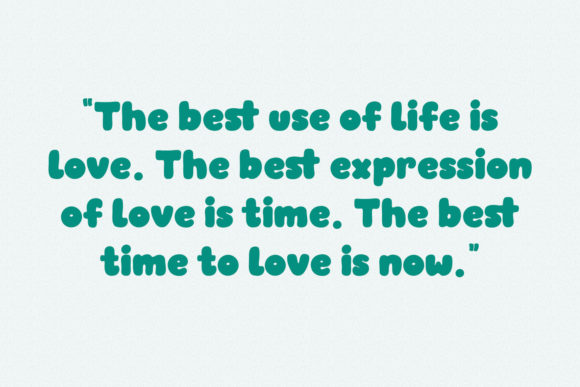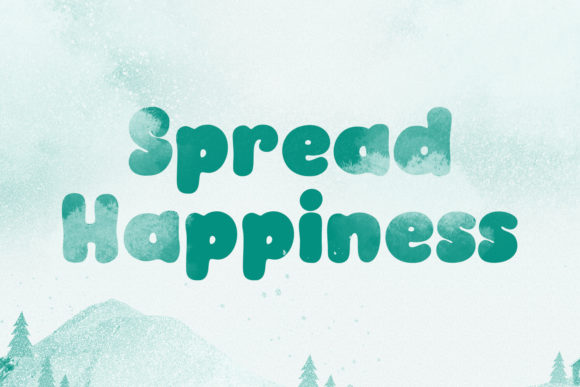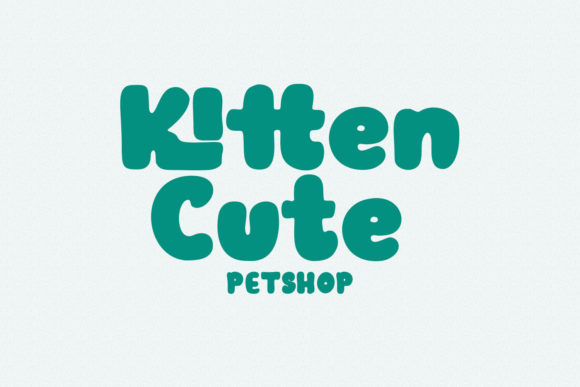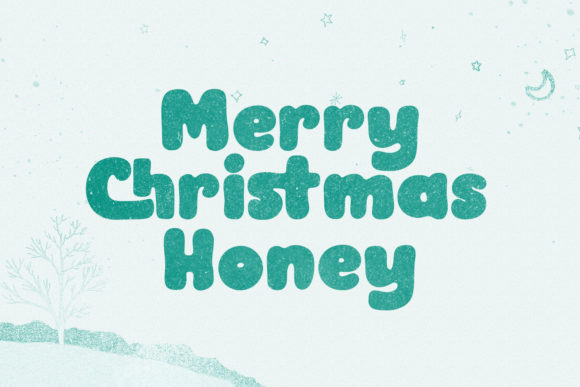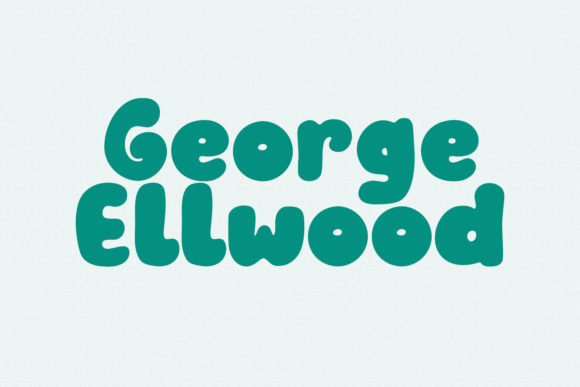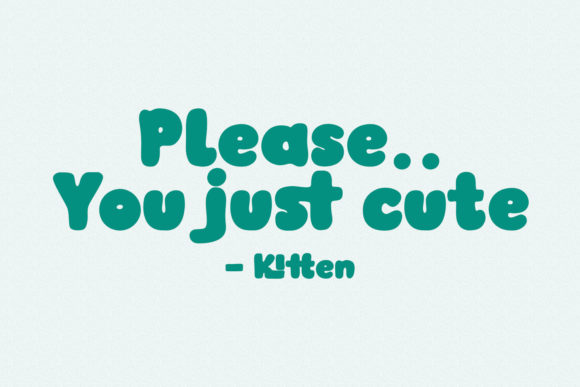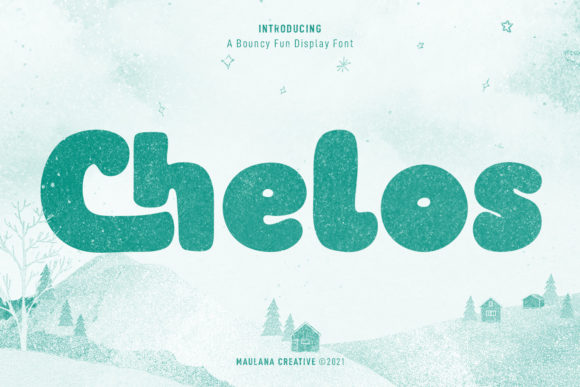
Chelos Font: The Ultimate Display Font for Creative Projects
Are you tired of using the same old fonts for your design projects? Look no further than Chelos Font, a bouncy display font that’s sure to add a touch of fun and personality to your work. With its bold strokes, fun characters, and cool ligatures, Chelos is the perfect choice for designers and crafters looking to make a statement.
What Makes Chelos Font So Special?
Chelos Font is a unique and eye-catching display font that’s designed to make your text stand out. Its bold strokes and fun characters give it a playful and energetic feel, while its cool ligatures add an extra touch of sophistication. Whether you’re working on a logo design, social media post, movie title, or book cover, Chelos Font is sure to make your text look stunning.
Uses for Chelos Font
Chelos Font is a versatile font that can be used for a wide range of design projects, including:
- Logo Designs: Chelos Font is perfect for creating eye-catching logos that will help your brand stand out.
- Social Media: Use Chelos Font to add a touch of personality to your social media posts and make them more engaging.
- Movie Titles: Chelos Font is a great choice for movie titles, adding a fun and playful touch to your film’s promotional materials.
- Books: Use Chelos Font to create eye-catching book covers that will help your book stand out on the shelves.
- Short Text: Chelos Font is perfect for short text, such as headings, titles, and captions.
- Long Text: Chelos Font can also be used for longer text, such as articles, blog posts, and website content.
Why Choose Chelos Font?
There are many reasons why Chelos Font is a great choice for designers and crafters, including:
- Unique and Eye-Catching: Chelos Font is a one-of-a-kind font that’s sure to grab attention.
- Easy to Read: Despite its bold and playful design, Chelos Font is easy to read, even at smaller sizes.
- Versatile: Chelos Font can be used for a wide range of design projects, from logos and social media posts to movie titles and book covers.
- Fun and Playful: Chelos Font has a fun and playful personality that’s perfect for designers and crafters who want to add a touch of whimsy to their work.
Tips for Using Chelos Font
Here are a few tips for getting the most out of Chelos Font:
- Use it Sparingly: Chelos Font is a bold and eye-catching font, so use it sparingly to avoid overwhelming your design.
- Experiment with Colors: Chelos Font looks great in a variety of colors, so don’t be afraid to experiment and find the perfect hue for your design.
- Pair it with Other Fonts: Chelos Font can be paired with other fonts to create a unique and interesting design.
Chelos Font is a unique and eye-catching display font that’s perfect for designers and crafters looking to add a touch of fun and personality to their work. With its bold strokes, fun characters, and cool ligatures, Chelos Font is sure to make your text stand out. Whether you’re working on a logo design, social media post, movie title, or book cover, Chelos Font is a great choice. So why not give it a try and see the amazing things you can create with Chelos Font?